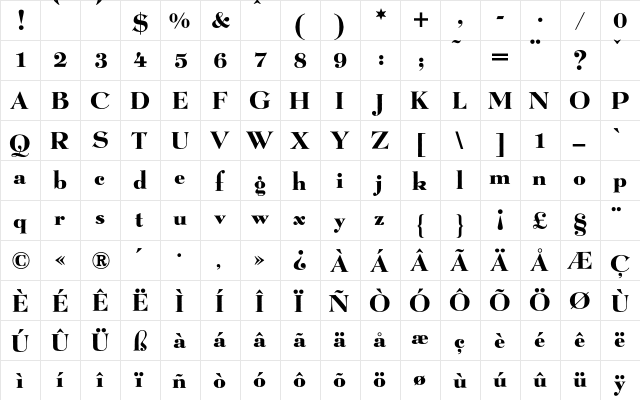
LucianBQ Medium
Design Context for LucianBQ Typeface
LucianBQ is a composed and adaptable typeface that performs quietly and consistently across a wide range of design contexts.